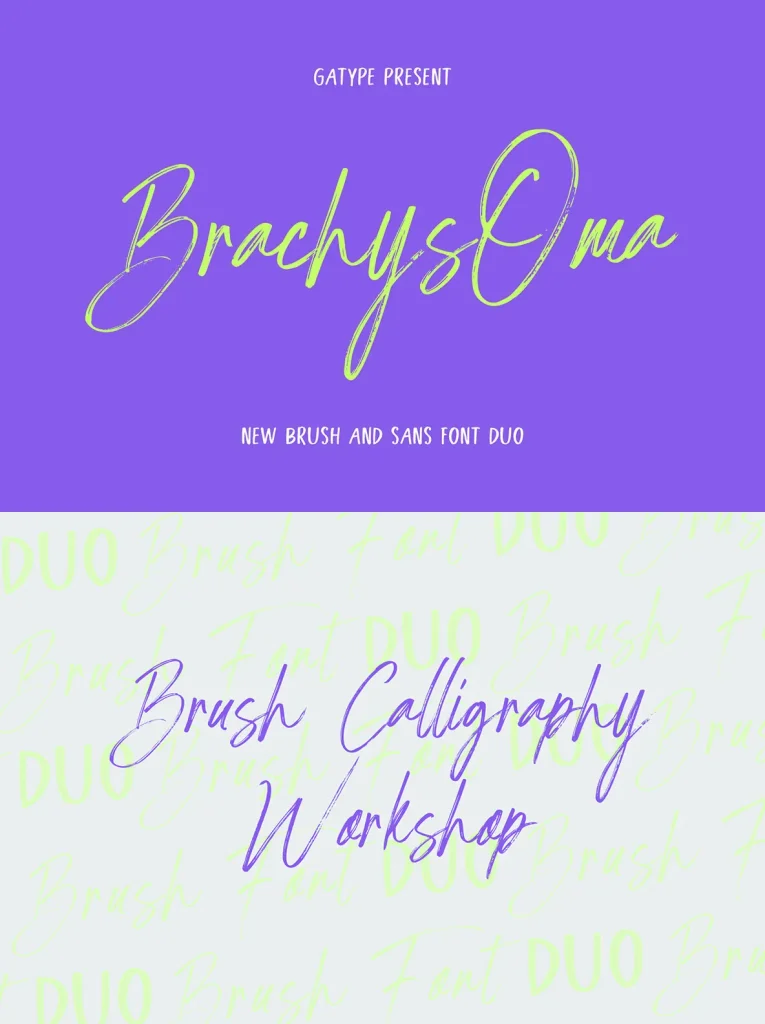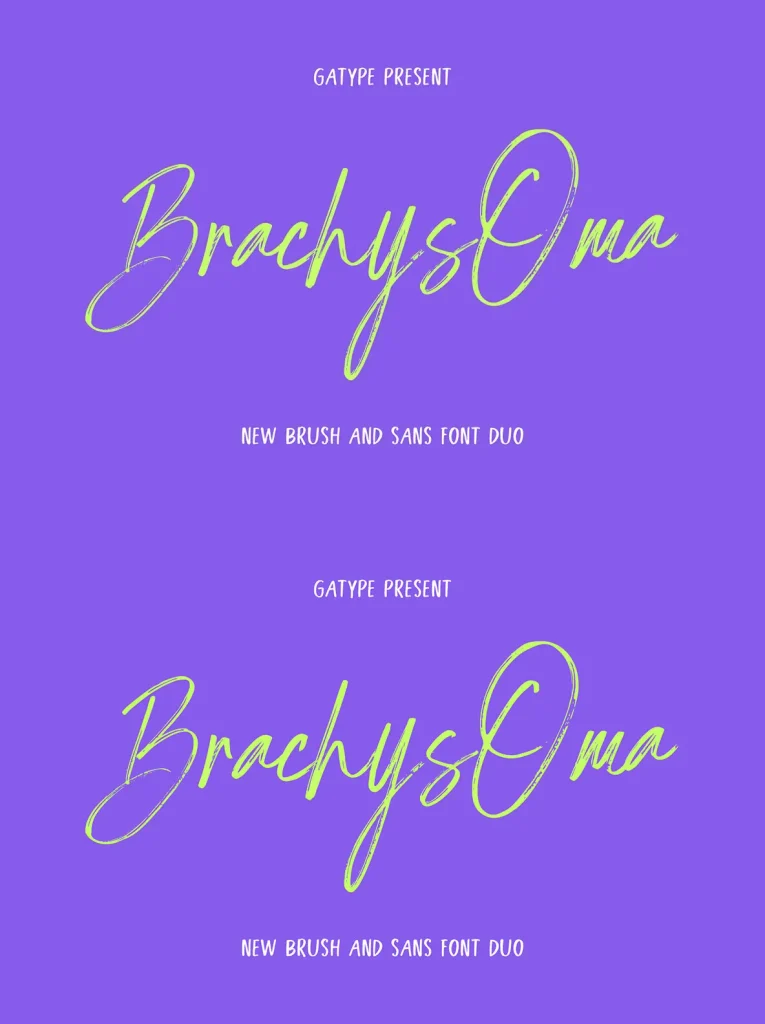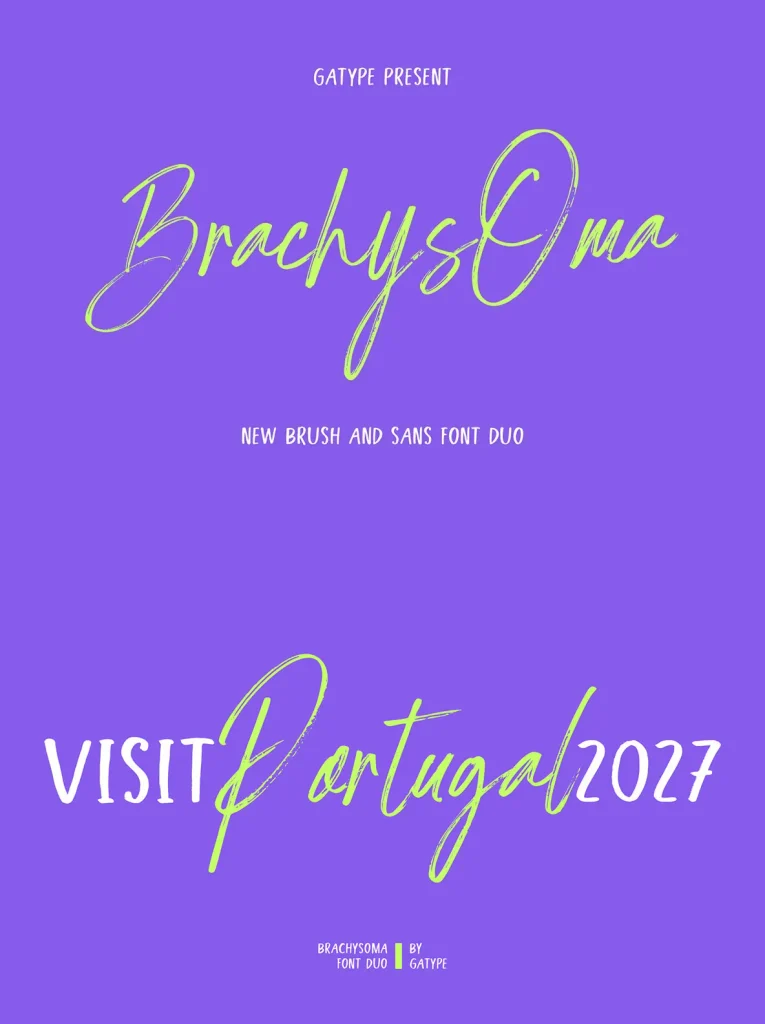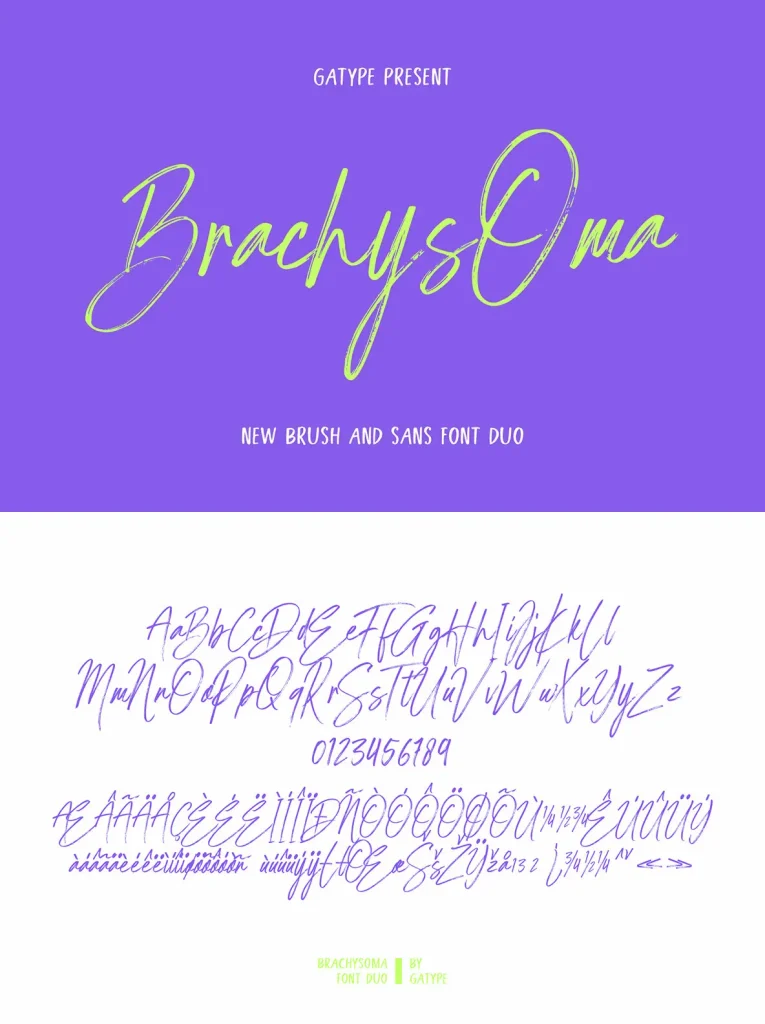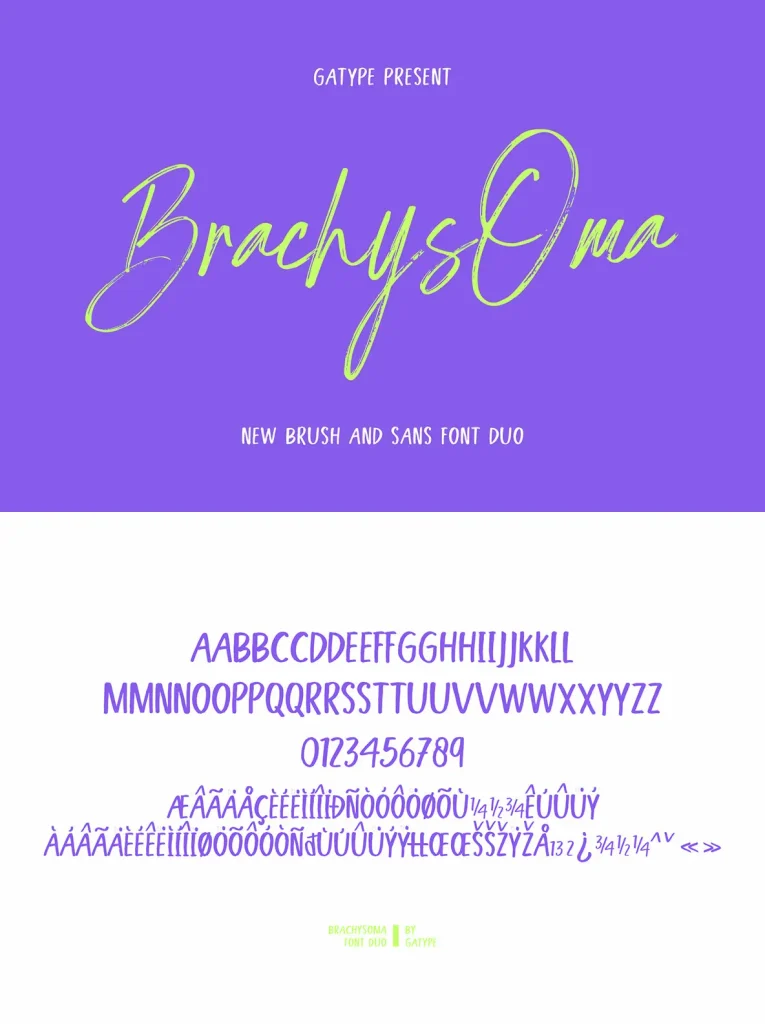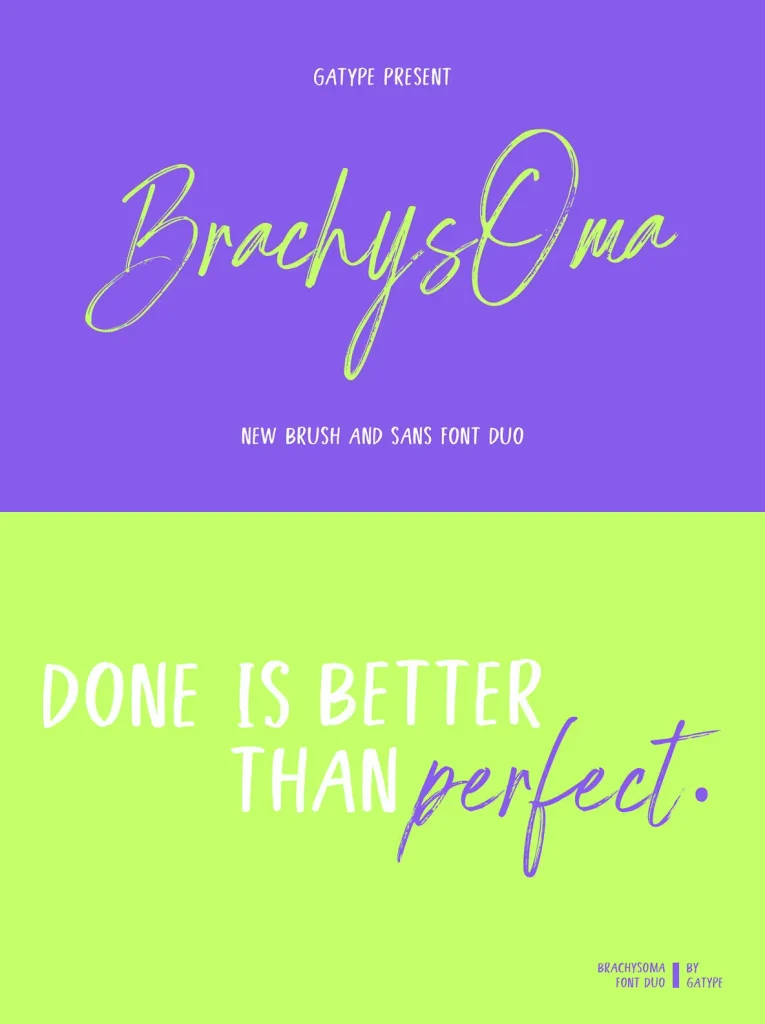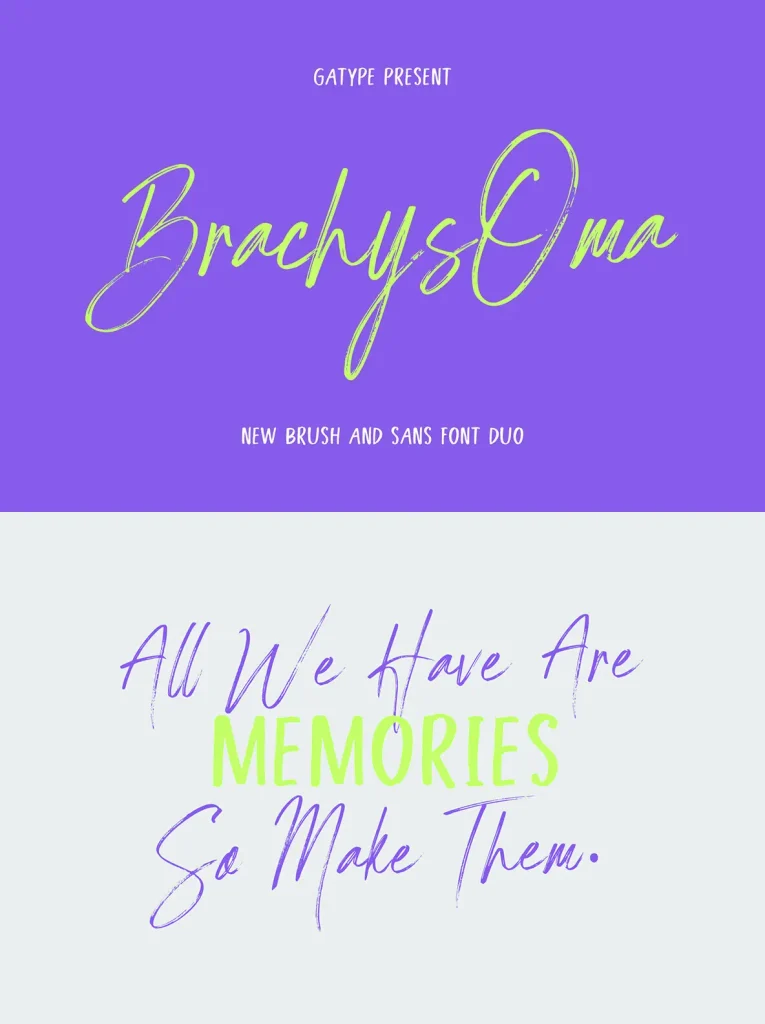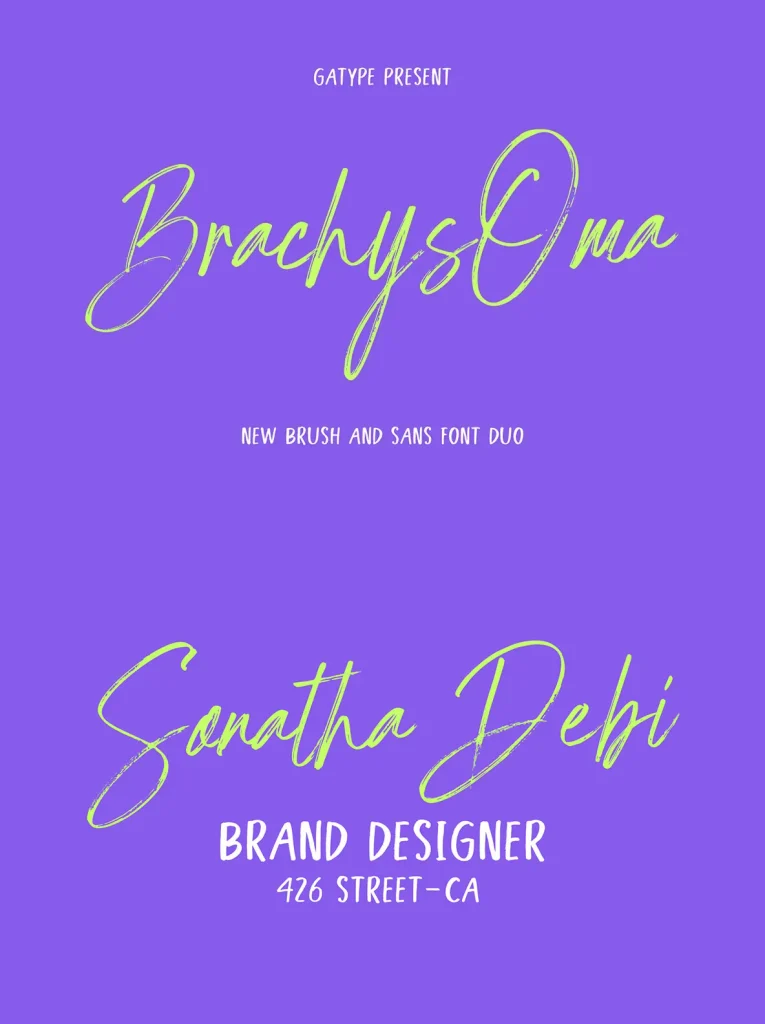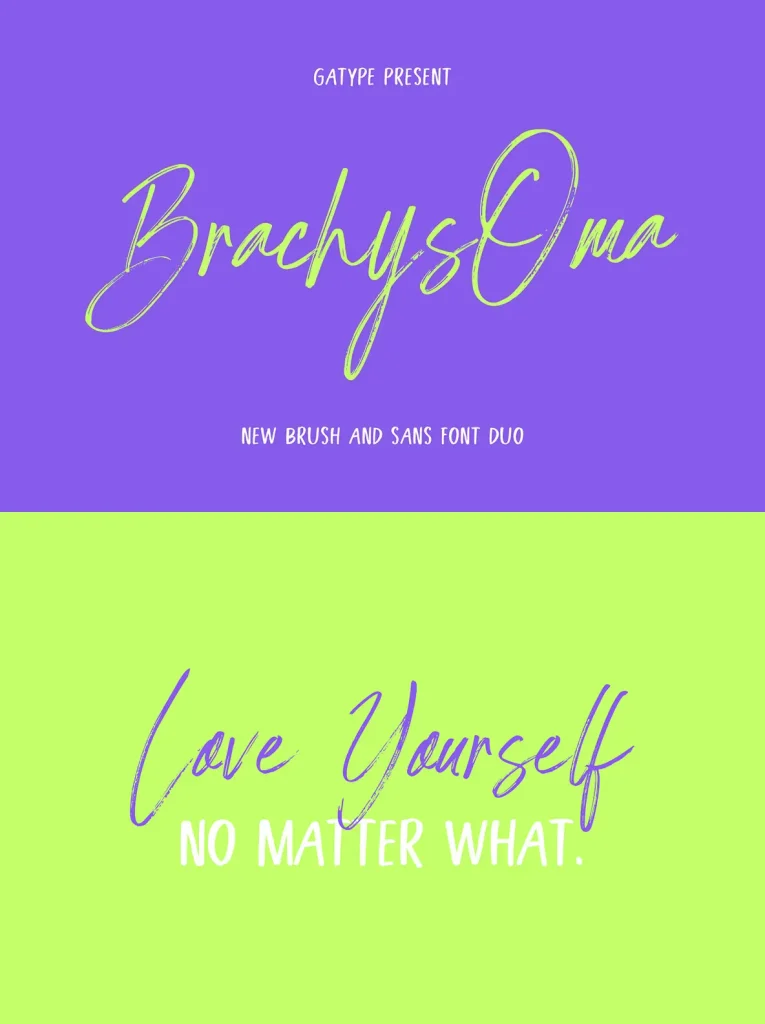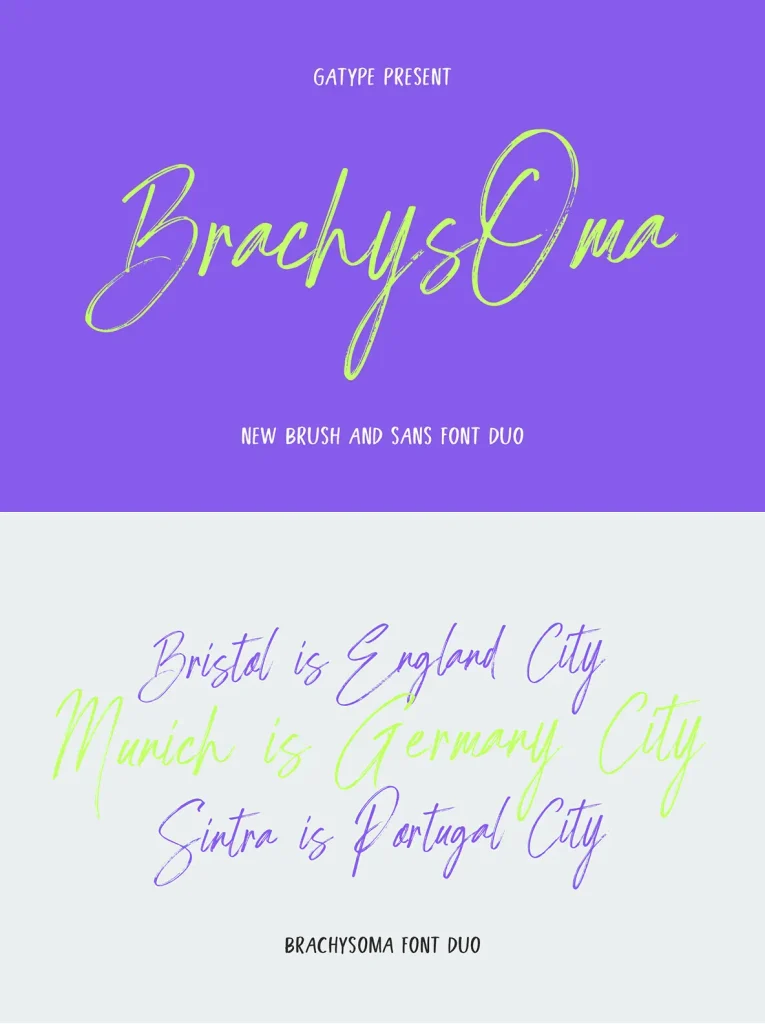
Brachys Oma — Organic Handwritten Grace
Brachys Oma is a unique organic handwritten font made for branding, invitations, and product packaging. Its letterforms balance modern simplicity with authentic charm, giving visual projects a personal, approachable tone without losing clarity.
The font includes a full set of uppercase and lowercase letters, numbers, punctuation, and multilingual symbols. It also offers lowercase beginning and ending swashes, ligatures, and bonus swashes, giving designers refined options for adding elegance, movement, and flair to typographic layouts.